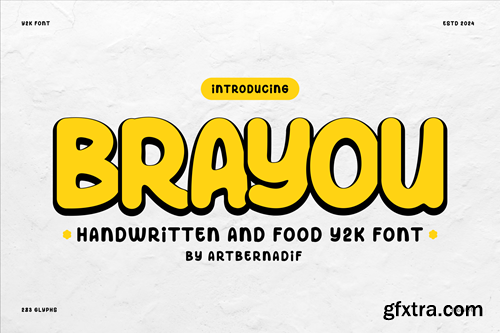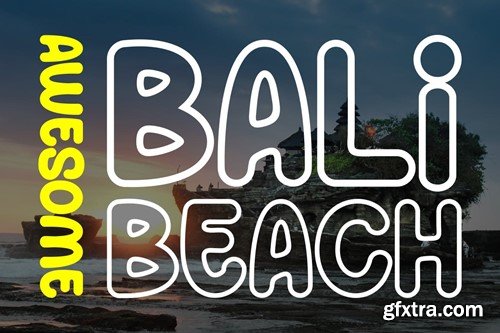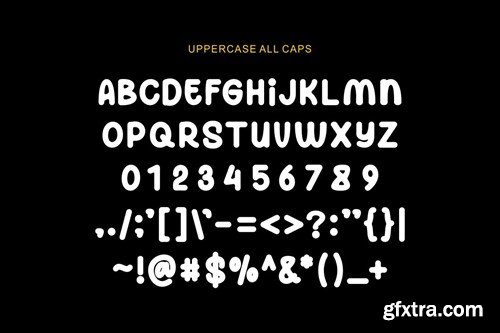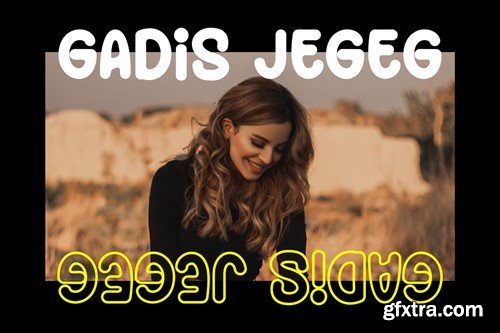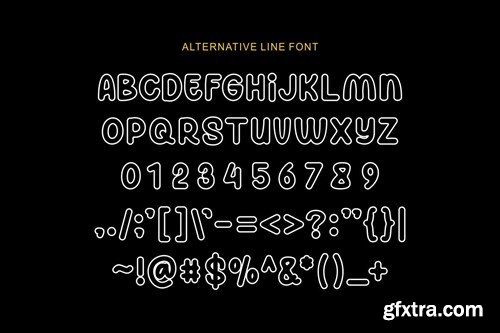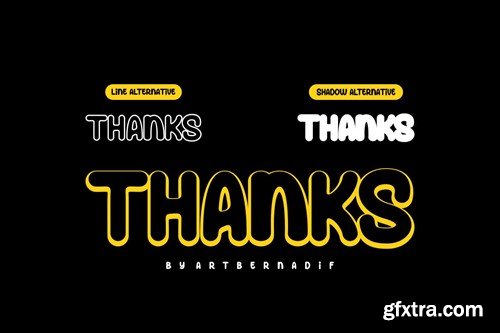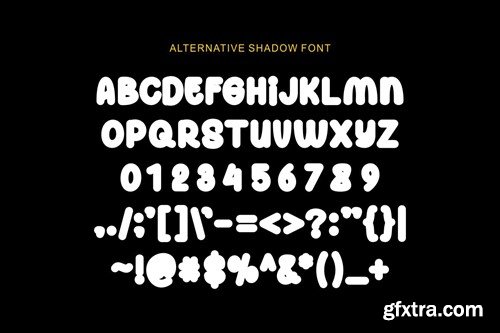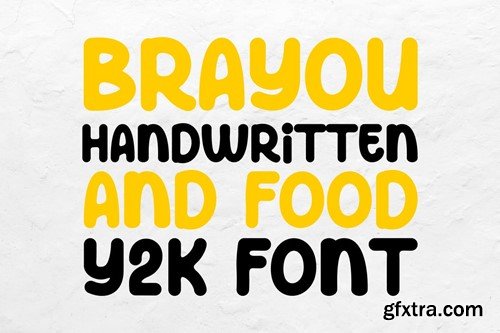
布拉 - 手写体和食品Y2K字体Z76U6RB
Brayou - Handwritten And Food Y2k Font Z76U6RB
Brayou - Handwritten And Food Y2k Font
Introducing our new product Brayou Font Handwritten And Food Y2k Font
Brayou Font Modern Font is a bold and authentic display font. The font is suitable for any branding project like logo, t-shirt printing, esport, and many more. outstanding in a wide range of contexts.